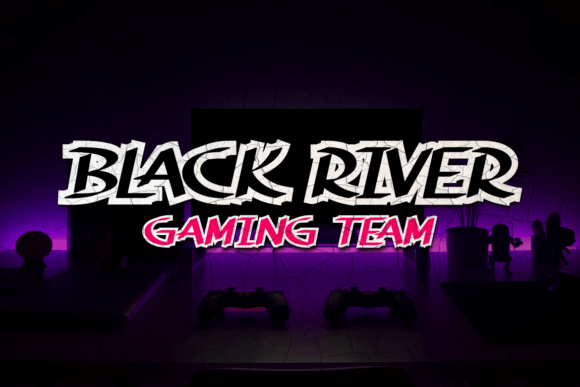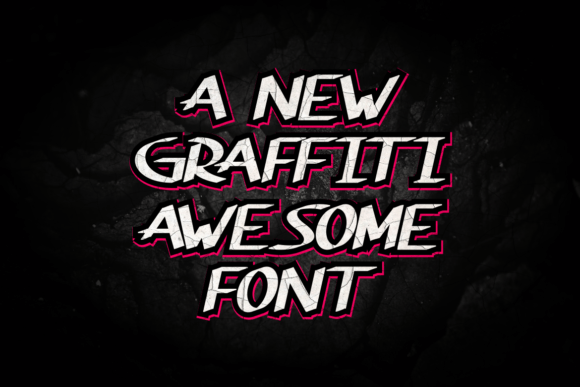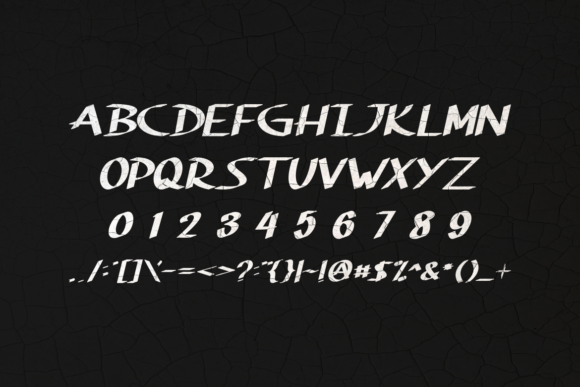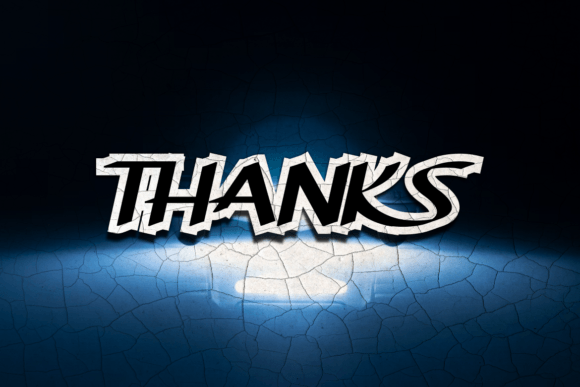
The Ultimate Display Font: Bostrex
As a designer, I’ve had my fair share of struggles when it comes to finding the perfect font for a project. I recall working on a logo design for a client in the esports industry, and I was determined to create something bold, authentic, and eye-catching. That’s when I stumbled upon Bostrex, a display font that has since become a staple in my design toolkit.
An Honest Review of Bostrex
• ✨ **Bold and Authentic**: Bostrex exudes confidence and energy, making it perfect for logos, t-shirt printing, and other branding projects.
• ✅ **Versatile**: This font looks outstanding in a wide range of contexts, from digital platforms to print materials.
• 💡 **Highly Legible**: Even at smaller sizes, Bostrex remains clear and easy to read.
While Bostrex is an excellent font, it’s not without its quirks. For instance:
• 🤔 **Limited Use in Body Text**: Due to its bold nature, Bostrex may not be the best choice for lengthy body text. It’s best used for headings, titles, or short phrases.
• ⚠️ **Glyph Limitations**: Some users have reported that the font could benefit from additional glyphs, particularly for non-English languages.
The Backstory of Bostrex
Bostrex was designed with the goal of creating a bold and authentic display font that could be used in a variety of contexts. The designer’s inspiration came from the world of sports and gaming, where bold and confident typography is essential. The result is a font that exudes energy and confidence, making it perfect for logos, t-shirt printing, and other branding projects.
Q: What is Bostrex font?
A: Bostrex is a bold and authentic display font suitable for branding projects, logos, t-shirt printing, and more.